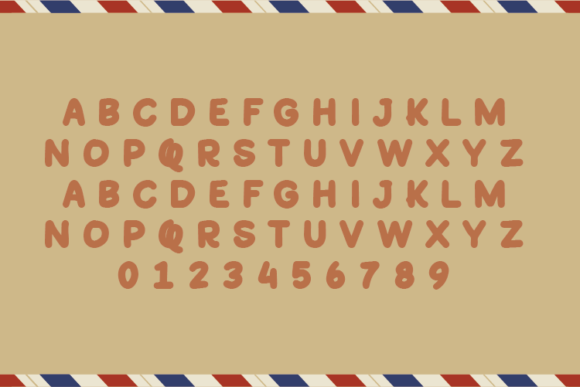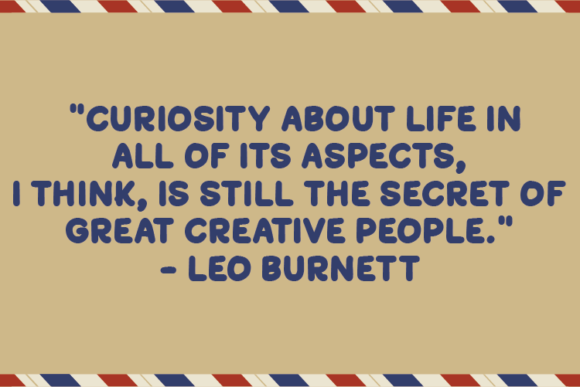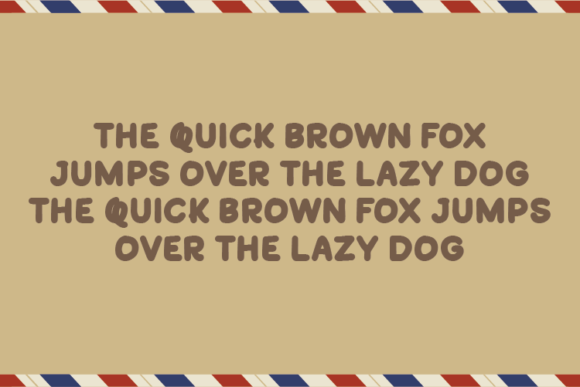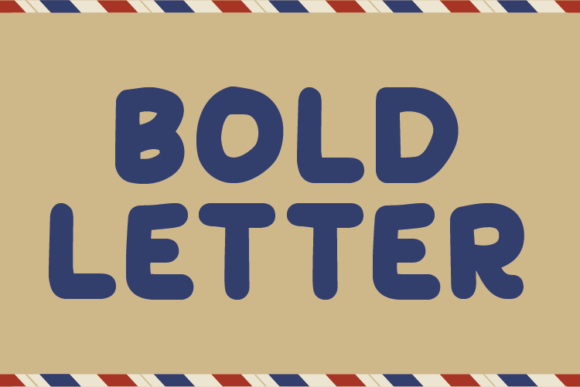
Discover the Unique Charm of Bold Letter Font: Elevate Your Designs with a Single Node
In the world of typography, fonts play a crucial role in conveying messages, expressing emotions, and creating visual identities. For designers and crafters, finding the perfect font can be a daunting task. However, if you’re looking for a font that stands out from the crowd, look no further than Bold Letter Font. This lovely display font is made without changing a single node in each character’s indentation, making it a unique and interesting addition to your design arsenal.
The Story Behind Bold Letter Font
Bold Letter Font is a carefully crafted display font that boasts a distinctive character. Unlike traditional fonts, Bold Letter Font is created without altering a single node in each character’s indentation. This innovative approach results in a font that exudes a sense of playfulness, elegance, and sophistication. The font’s creator aimed to design a typeface that would add a touch of personality to any design project, and the result is a font that is both visually striking and versatile.
Key Features of Bold Letter Font
• Unique Indentation Style: The font’s most notable feature is its single node indentation style, which sets it apart from other fonts.
• Display Font: Bold Letter Font is designed specifically for display purposes, making it perfect for headlines, titles, and quotes.
• Playful yet Elegant: The font strikes a balance between playfulness and elegance, making it suitable for a wide range of design projects.
• Versatile: Bold Letter Font can be used for various design applications, including quotes, notes, tees, and product design.
Bold Letter Font is an excellent choice for designers and crafters looking to add a personal touch to their projects. Whether you’re creating:
• Quotes and Posters: Add a bold statement to your quotes and posters with this eye-catching font.
• T-Shirts and Apparel: Create unique and stylish tees with Bold Letter Font.
• Notes and Stationery: Add a touch of elegance to your notes and stationery with this beautiful font.
• Product Design: Use Bold Letter Font to create visually appealing product designs that stand out.
Tips for Using Bold Letter Font
To get the most out of Bold Letter Font, consider the following tips:
• Experiment with Colors: Try pairing Bold Letter Font with different colors to create visually striking combinations.
• Mix and Match: Combine Bold Letter Font with other fonts to create a unique typography style.
• Play with Size: Experiment with different font sizes to add emphasis and create visual hierarchy.
Bold Letter Font is a one-of-a-kind display font that offers a fresh perspective on typography. Its unique indentation style, playful yet elegant character, and versatility make it an excellent choice for designers and crafters. Whether you’re looking to create stunning quotes, stylish tees, or beautiful notes, Bold Letter Font is sure to elevate your designs and add a touch of personality to your projects.
Get Ready to Make a Statement with Bold Letter Font